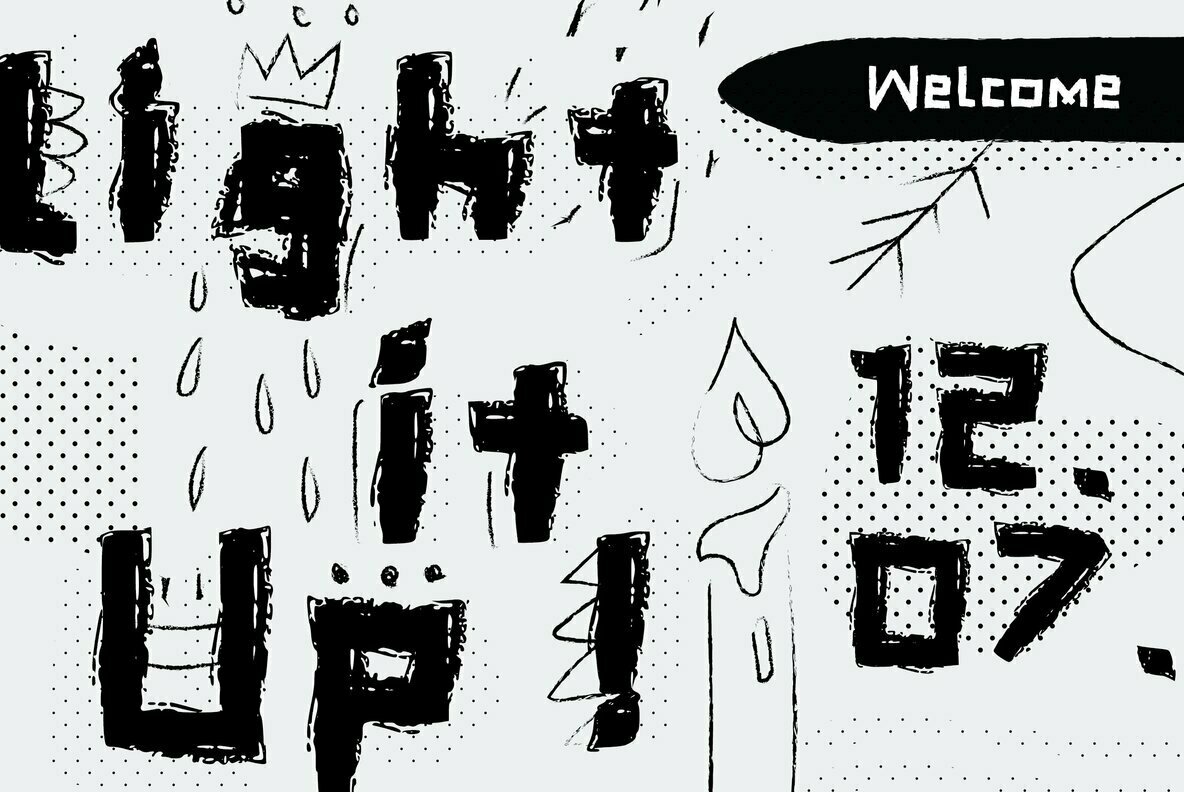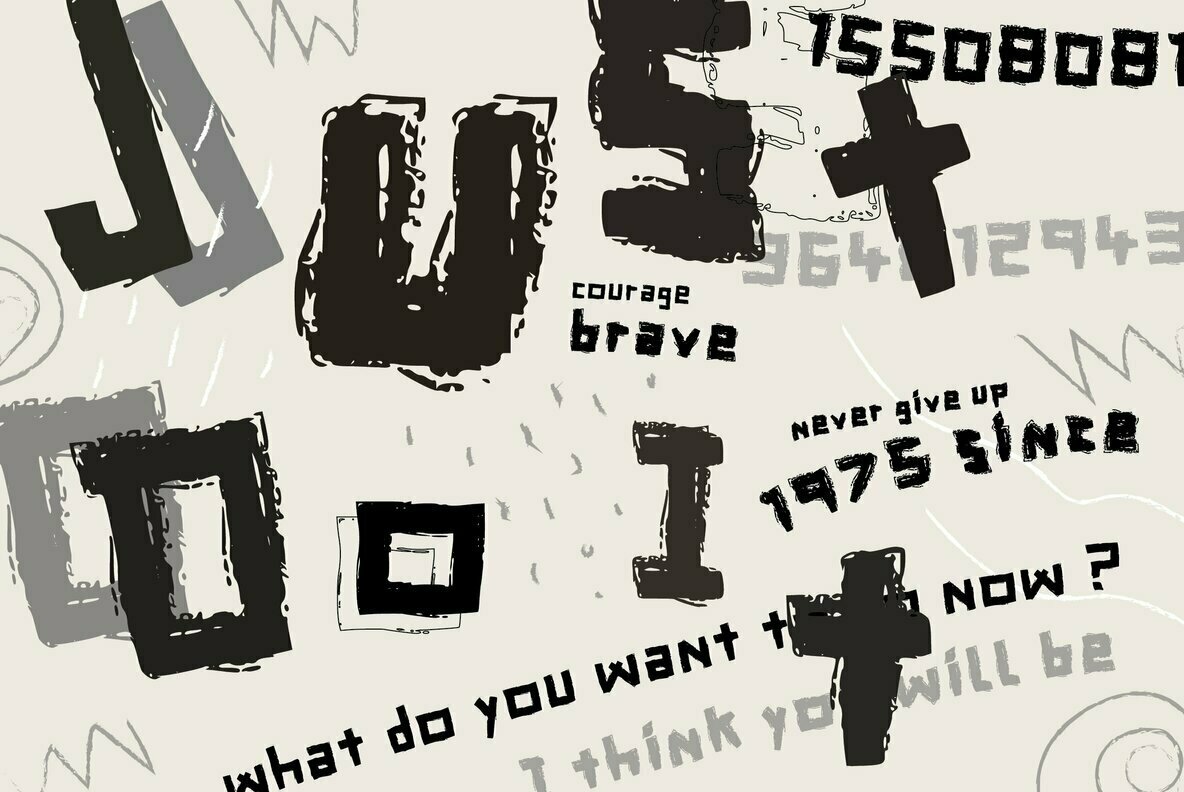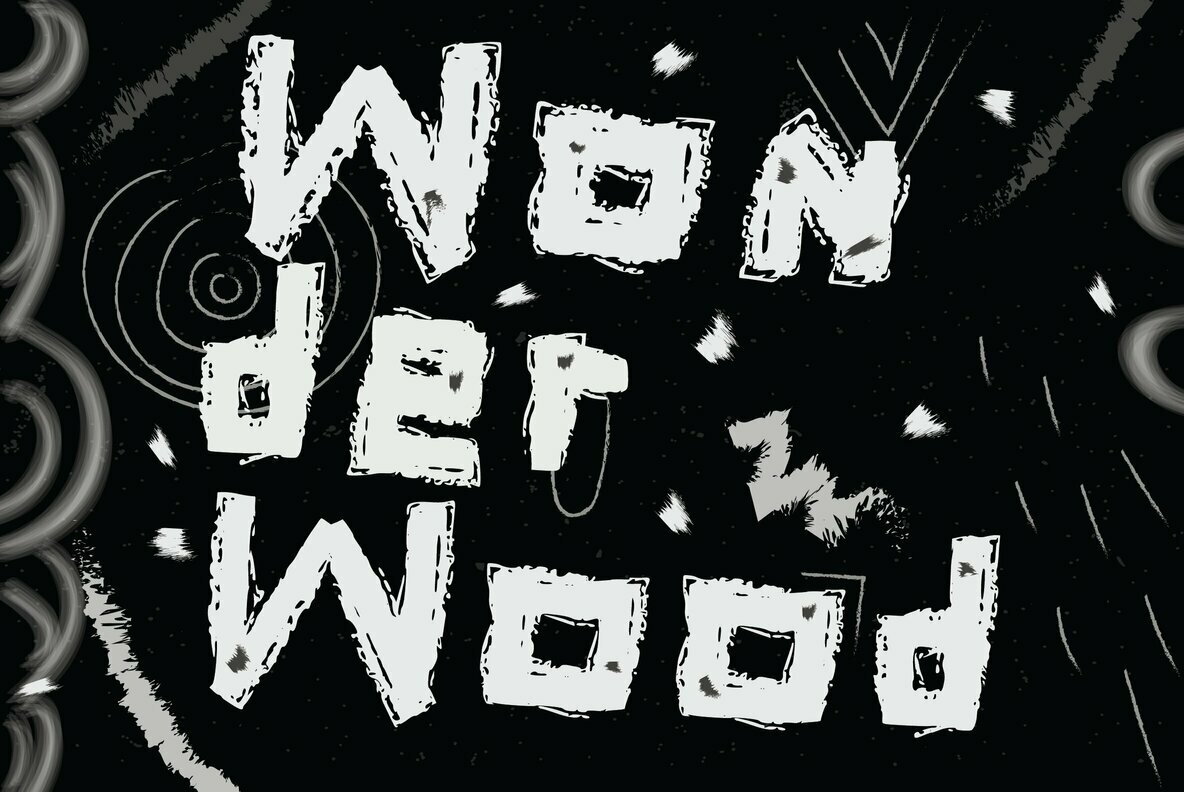
Wood Cut 1
Bold wood textured font that looks like it's just been freshly chopped from the woods. Upper, lower full alphabet including numbers and symbols.